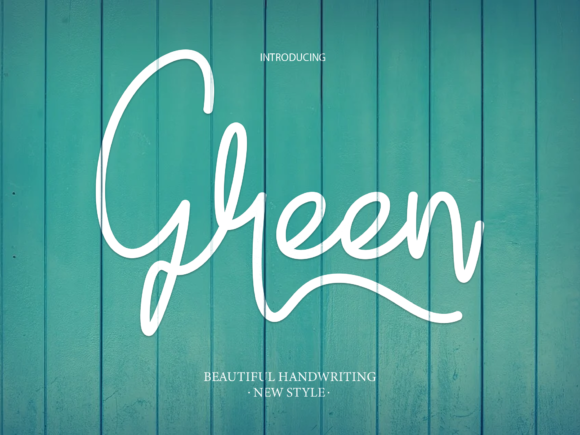
Get ready to embrace the charm and elegance of Green, a captivating script font that whispers confidence and versatility. Green's graceful curves and sophisticated alternates will elevate your creations, making them shine with a touch of chic flair. Whether you're crafting alluring label designs, enchanting social media posts, or simply adding a dash of personality to your everyday projects, Green has got you covered. Dive into the world of typography and let Green become your go-to font for expressing your unique style.
Don't just take our word for it. Green's popularity speaks volumes. It's the font of choice for those seeking a timeless and sophisticated touch. Its versatility knows no bounds, making it the perfect companion for a wide range of projects. From elegant invitations and eye-catching logos to personalized gifts and social media graphics, Green adds a touch of magic to everything it adorns. Its stylish alternates and ligatures bring a touch of individuality to your designs, allowing you to create truly captivating content.
Green is more than just a font; it's an expression of your creativity. It's the perfect tool for those who want to make a statement and leave a lasting impression. Its chic and trendy style will turn heads and steal hearts wherever it goes. So, why settle for ordinary when you can embrace the extraordinary? Download Green today and unlock a world of endless typographic possibilities!